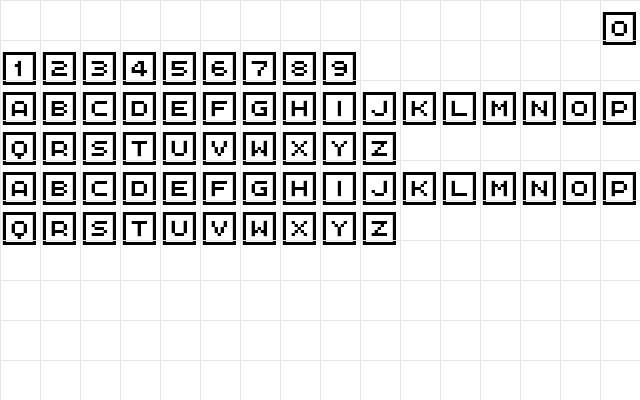
FFF Interface03 Regular
FFF Interface03 is a composed and adaptable typeface that performs quietly and consistently across a wide range of design contexts.